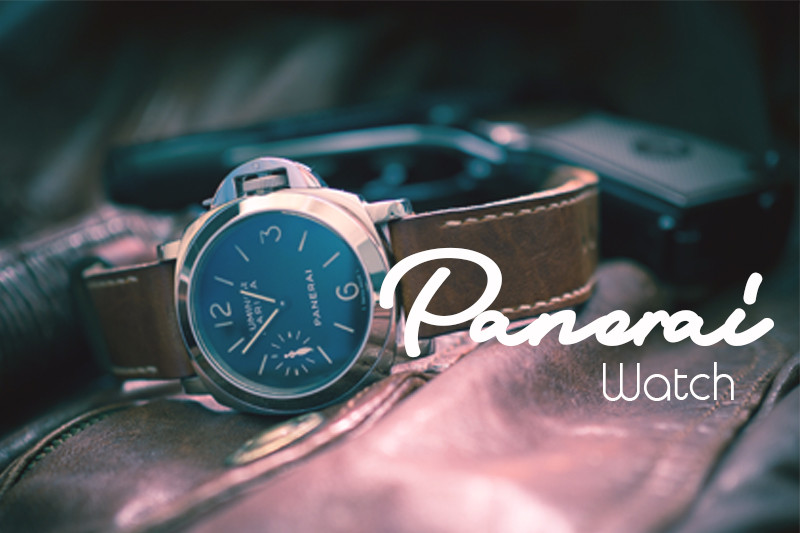
Sri Kandi Script Font
Sri Kandi is a stylish and effortlessly cool handwritten font with a contemporary twist. It will add a unique spin on any design project!You will find font in both OTF, TTF, formats. No special software is required to use Rolade Font, just install it as you normally do on your system.